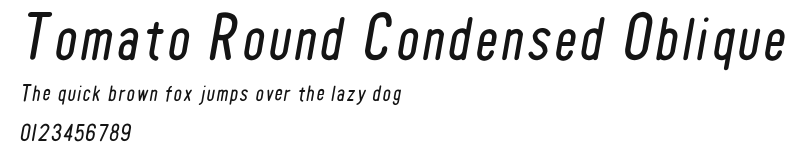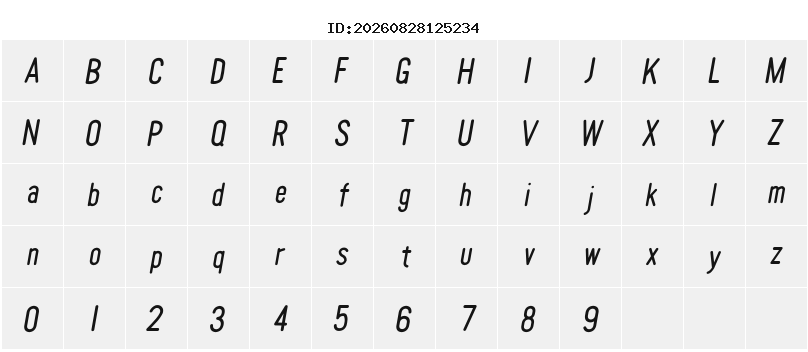
Tomato Round Condensed Oblique Preview
About Tomato Round Condensed Oblique.ttf
Tomato Round Condensed Oblique.ttf is a modern, elegant sans-serif font designed for ultimate readability and visual harmony. Perfect for branding, headlines, web design, and print materials.